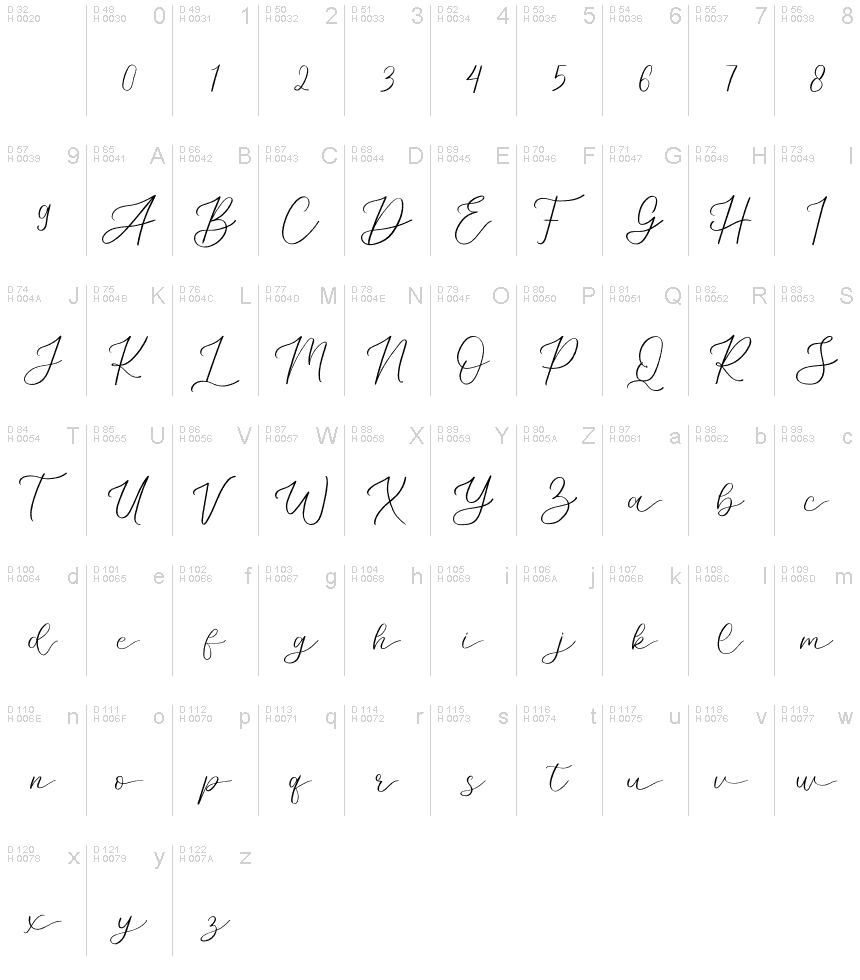
Deandra Cattalina
Deandra Cattalina, by Bluestype Studio, is an exquisite calligraphy font with an extra-light weight. Its graceful curves and delicate strokes exude elegance and sophistication. Perfect for wedding invitations, fine dining menus, or high-end fashion branding, Deandra Cattalina adds a touch of luxury to any project. With its refined aesthetic and timeless appeal, this font elevates designs with its airy and ethereal nature. Bring a sense of refinement to your creations with Deandra Cattalina's enchanting calligraphic style that effortlessly captures attention and leaves a lasting impression.